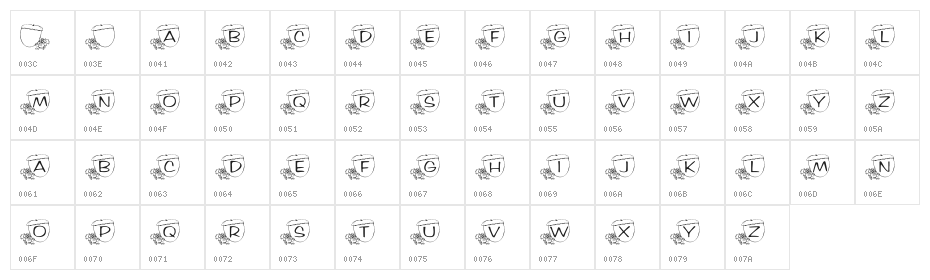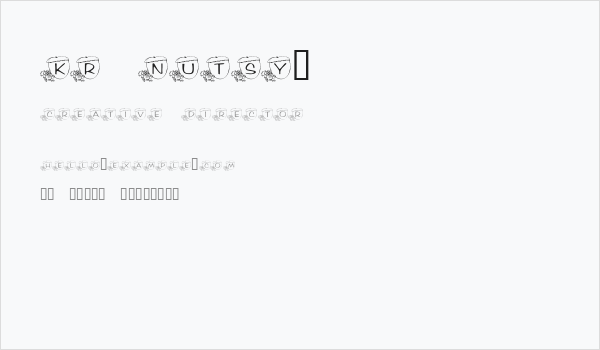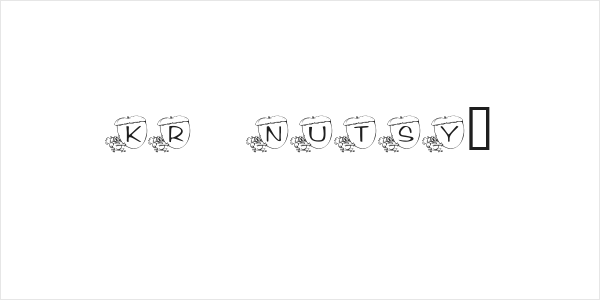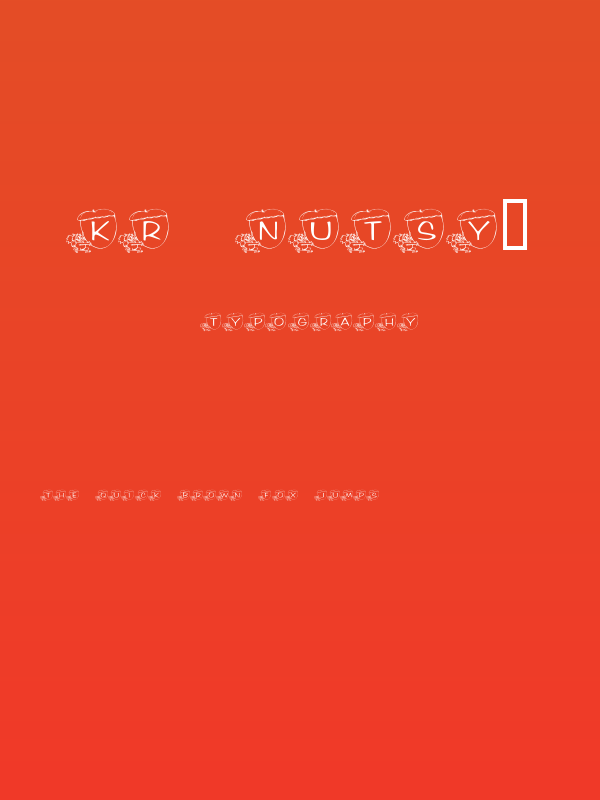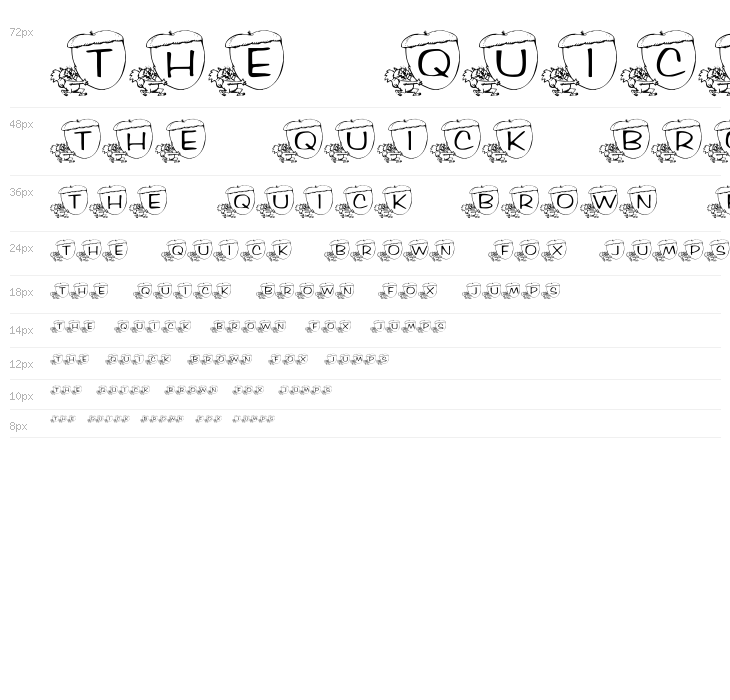
KR Nutsy! Font
KR Nutsy! Description
This playful and whimsical font features each letter encased within a cartoonish acorn, accompanied by a small squirrel illustration. The letters themselves are bold and clear, making them easily readable despite the decorative elements. The acorn and squirrel design adds a fun and quirky touch, making it ideal for projects that require a lighthearted and creative feel. The font maintains a consistent style throughout, with each character uniformly placed within its acorn, ensuring a cohesive look. The overall design is charming and unique, perfect for capturing attention in a playful manner.
| Overall Style | Whimsical |
| Proposed Projects | Ideal for children's books, playful invitations, greeting cards, or educational materials. |